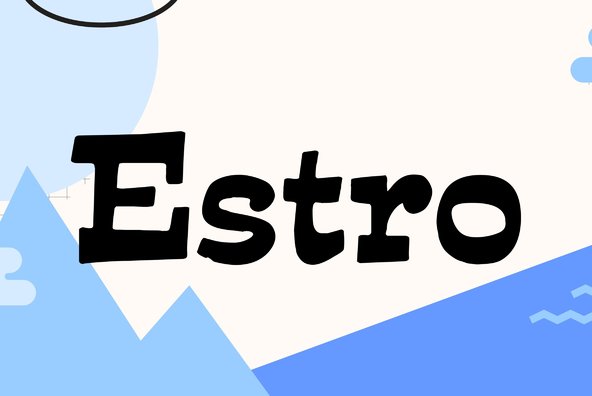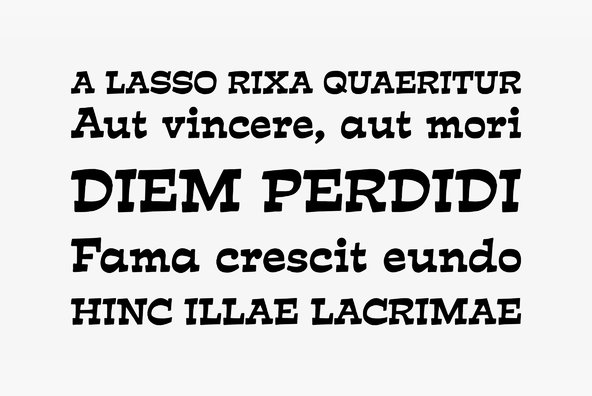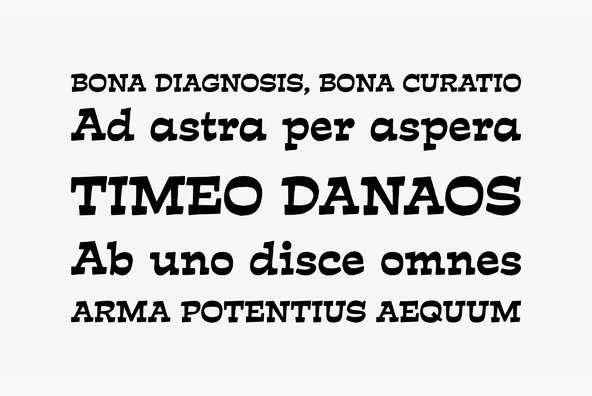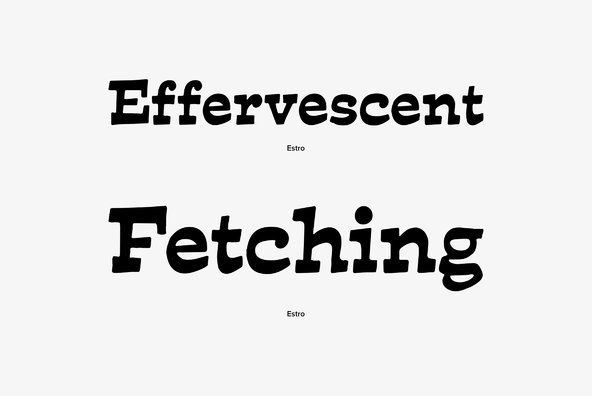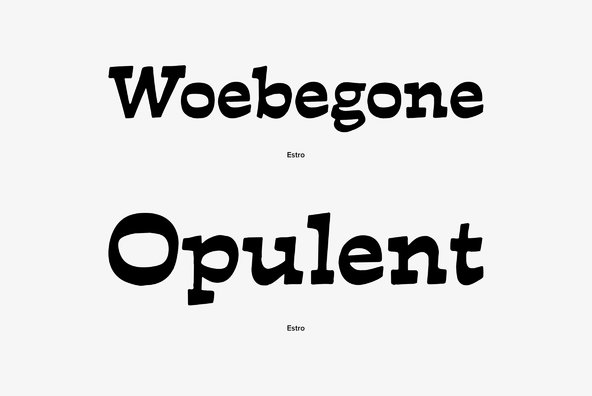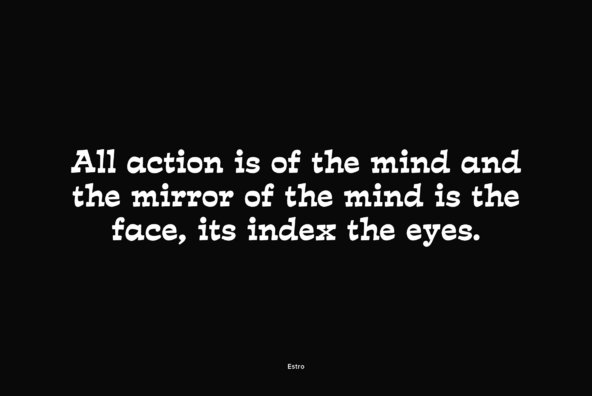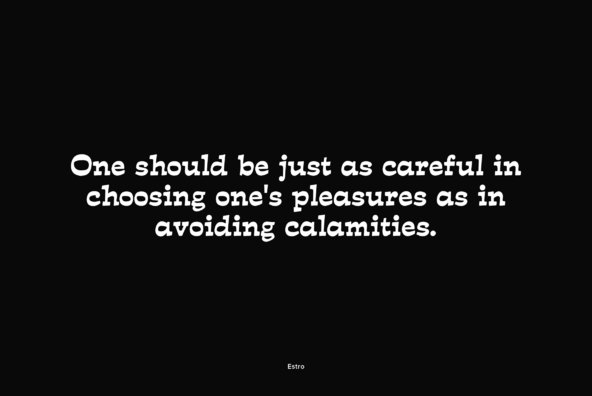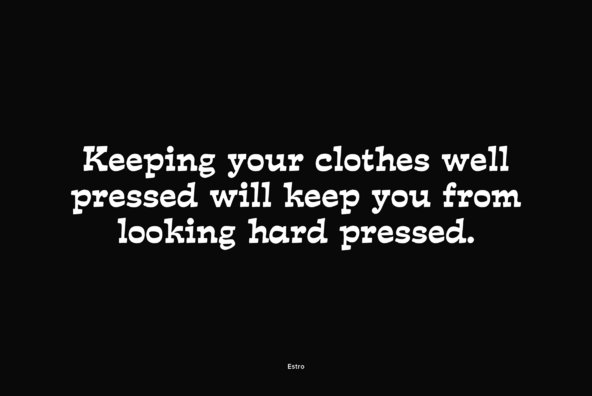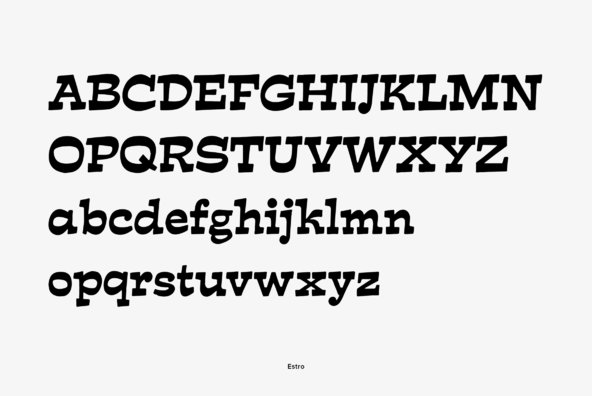
Estro was originally designed by Aldo Novarese in 1961 for the foundry Nebiolo. Estro can maybe be classified a combination of Egyptienne and script. Ralph M. Unger redrew and digitized this font exclusively for profonts in 2003. His work is based on artwork taken from old font catalogues.